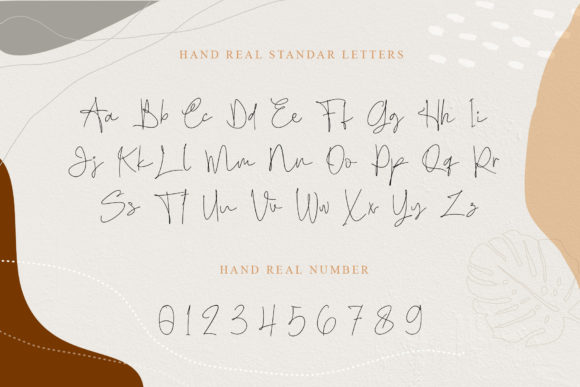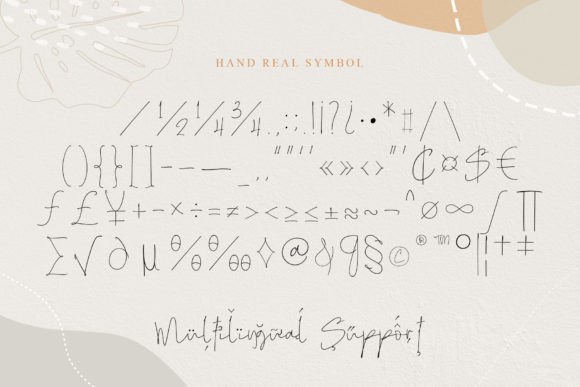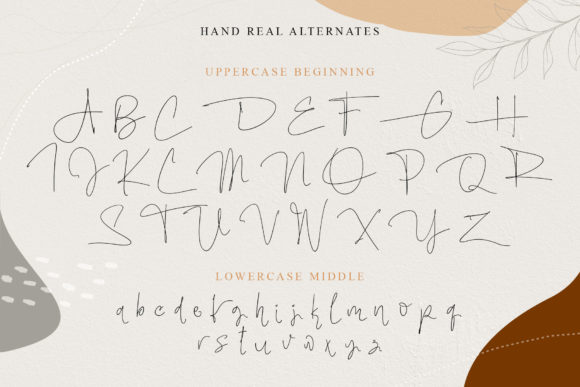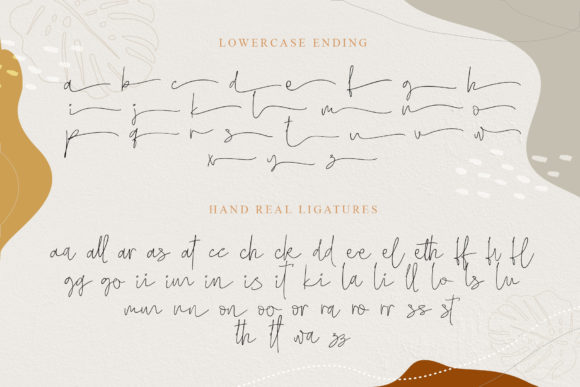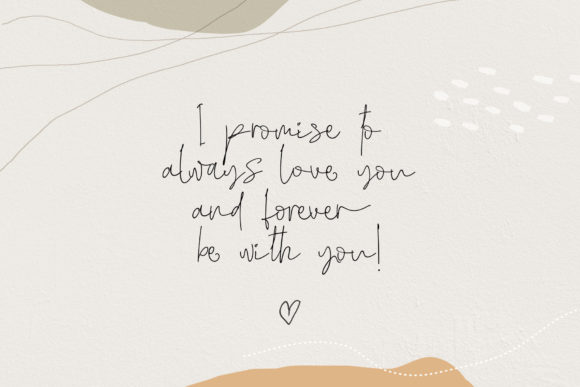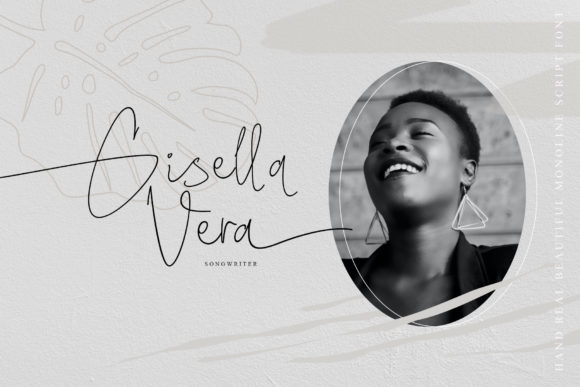
Introduction to Hand Real Font
Do you remember the moment when you stumbled upon the perfect font that made your creative project come to life? For many designers, that moment is a rush of excitement and satisfaction. It’s the moment when you know you’ve found the perfect tool to convey your message and tell your story. That’s exactly what you’ll experience when you discover the Hand Real Font – a stunning, high-quality handwritten font that’s about to become your new design best friend.
With its thin and fashionable style, Hand Real Font is perfect for creating beautiful wedding invitations, gorgeous stationery art, and eye-catching social media posts. And the best part? It’s available for free download, making it an invaluable design resource for creatives on a budget. Whether you’re working on a personal or professional project, Hand Real Font is sure to bring your ideas to life with its transparent background and versatile style.
Key Features of Hand Real Font
- High-quality, hand-drawn design perfect for creative projects
- Unique, hand-painted style adds a personal touch to any design
- Perfect design resource for branding, typography, and graphic design projects
Honest Review: Hand Real Font
As a designer, I’m always on the lookout for high-quality design resources to elevate my creative projects. I recently stumbled upon Hand Real Font, a free download that caught my attention. Let’s dive into the details.
- ✨ Unique hand-drawn style that adds a personal touch to designs
- ✨ Transparent background makes it easy to customize and integrate into various design projects
- ✨ Versatile font family with multiple weights and styles to suit different design needs
- ⚠️ Limited character set, which may not be suitable for longer blocks of text
- ⚠️ May not be suitable for formal or professional designs, as the hand-drawn style can be perceived as casual
Overall, Hand Real Font is a solid addition to any designer’s toolkit. While it may have some limitations, its unique style and high-quality design make it a valuable resource for creative projects. If you’re looking for a fresh, hand-drawn font to add some personality to your designs, Hand Real Font is definitely worth checking out.
Hand Real Font is a versatile design resource that can be used in a variety of creative projects, including logos, business cards, and social media graphics. Its high quality and transparent background make it an ideal choice for designers looking to create professional-looking designs quickly and easily.